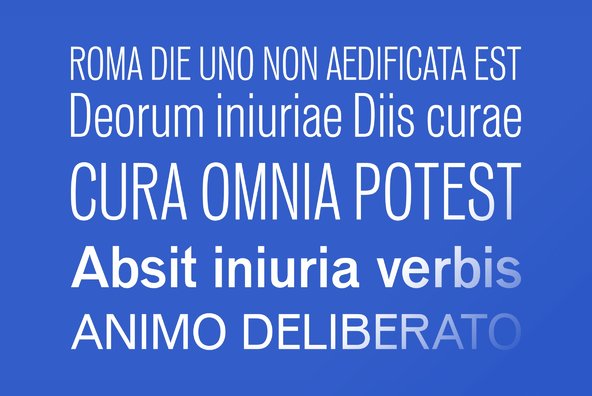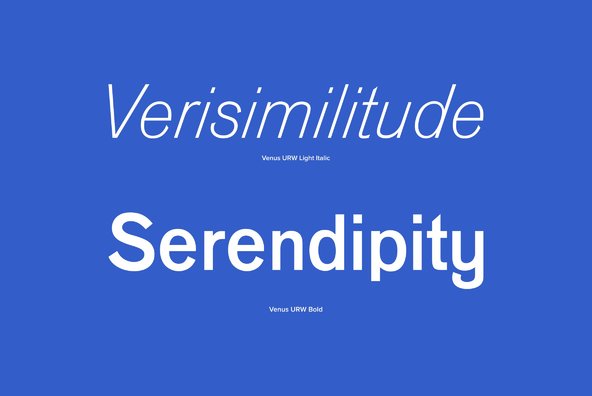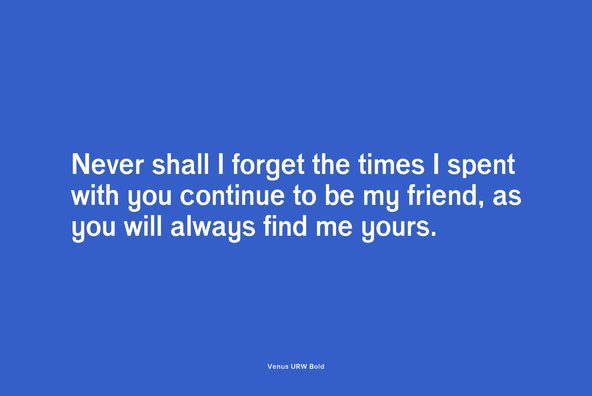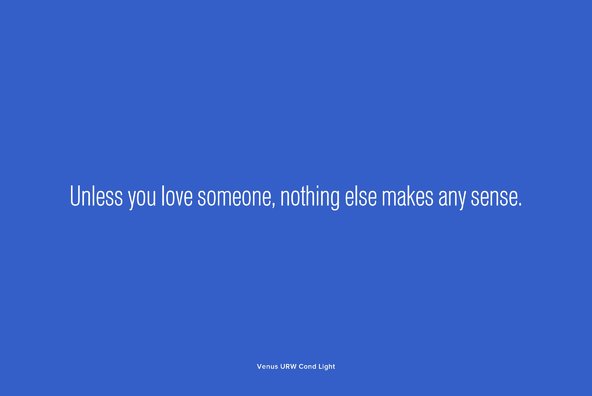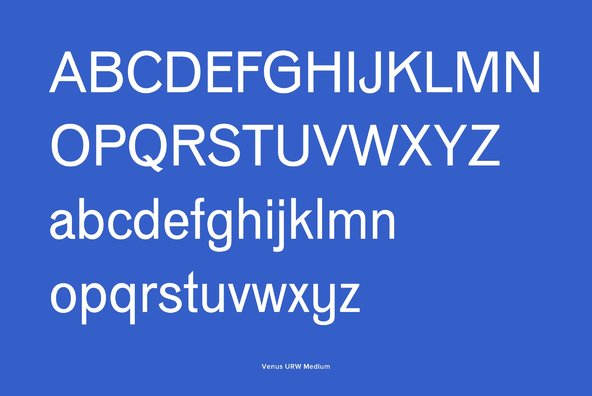
Venus is a clean, modern, minimal and well designed sans-serif typeface from the German type studio, URW. Venus is a simple and great option for body content use, such as in magazines and poster design.